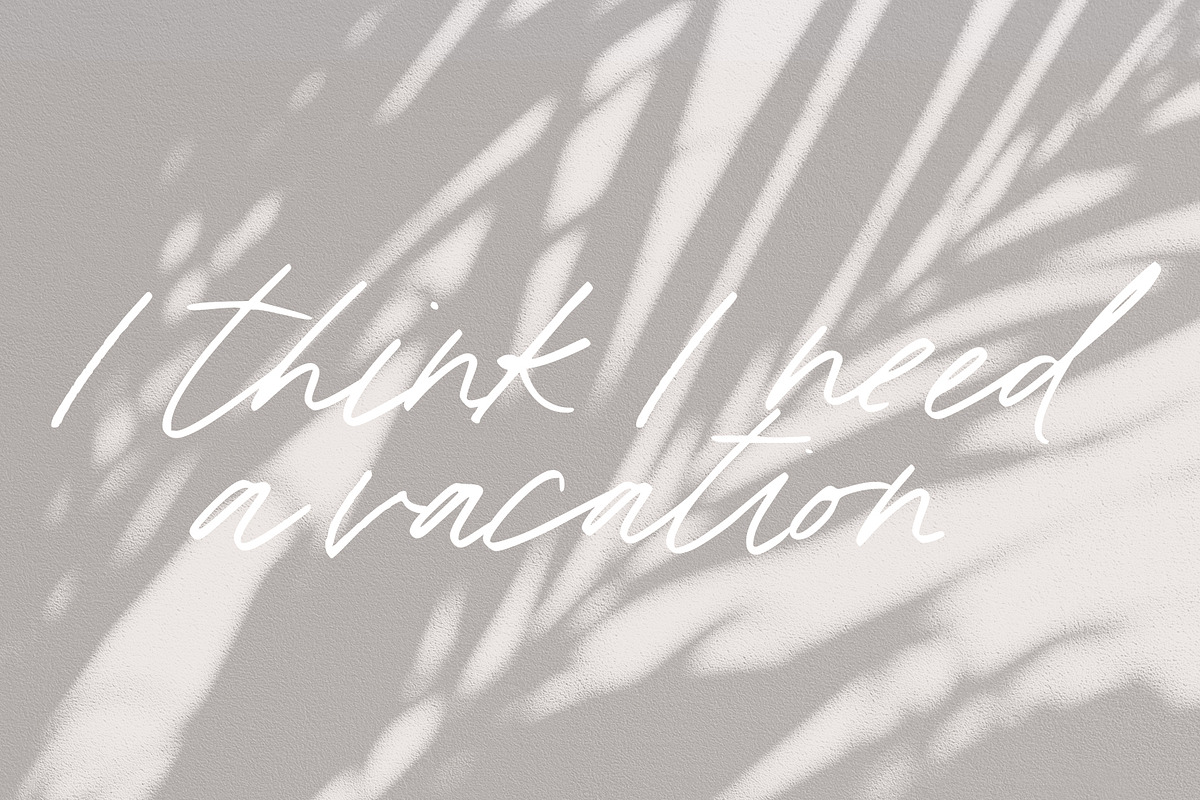
Oakley: a Handmade Marker Script
Oakley is a handmade marker script with a laid-back, effortless look.
- LOTS of ligatures (220 to be exact).
- Numbers and Punctuation
- Spanish Characters
- BONUS Oakley Caps an all Caps marker font to match.
love this font, but some of the letters - Like the uppercase K are not smooth like the rest of the typeface. I would love to use this more often, but I can't manually smooth out these letterforms every time. :(